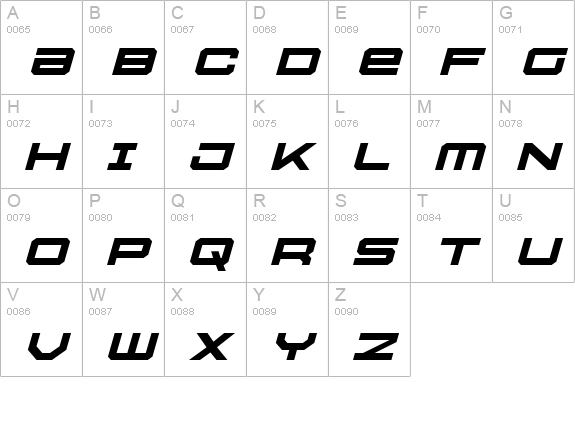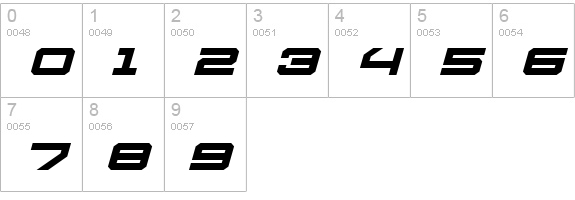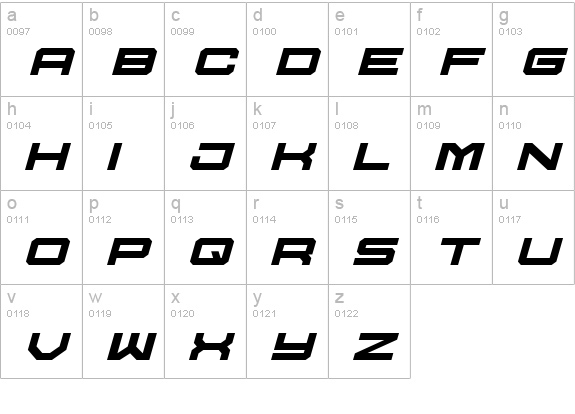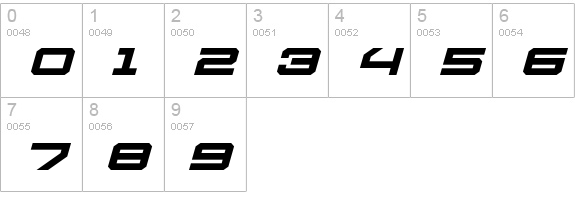
U.S.S. Dallas Expanded Italic is a distinctive, extended-width, italic variant in the U.S.S. typeface family \xE2\x80\x94 well suited to design and typography projects.
The U.S.S. Dallas Expanded Italic font is a sleek and modern typeface that exudes elegance and sophistication. With its bold letterforms and stylish italics, this font is perfect for adding a touch of flair to your design projects. Whether you're creating a logo, website, or print materials, U.S.S. Dallas Expanded Italic is sure to make a statement. Best of all, this stunning font is available for free download at FontsMarket.com. Simply visit the website to get your hands on this versatile typeface and take your designs to the next level. Don't miss out on the opportunity to enhance your projects with the U.S.S. Dallas Expanded Italic font today!